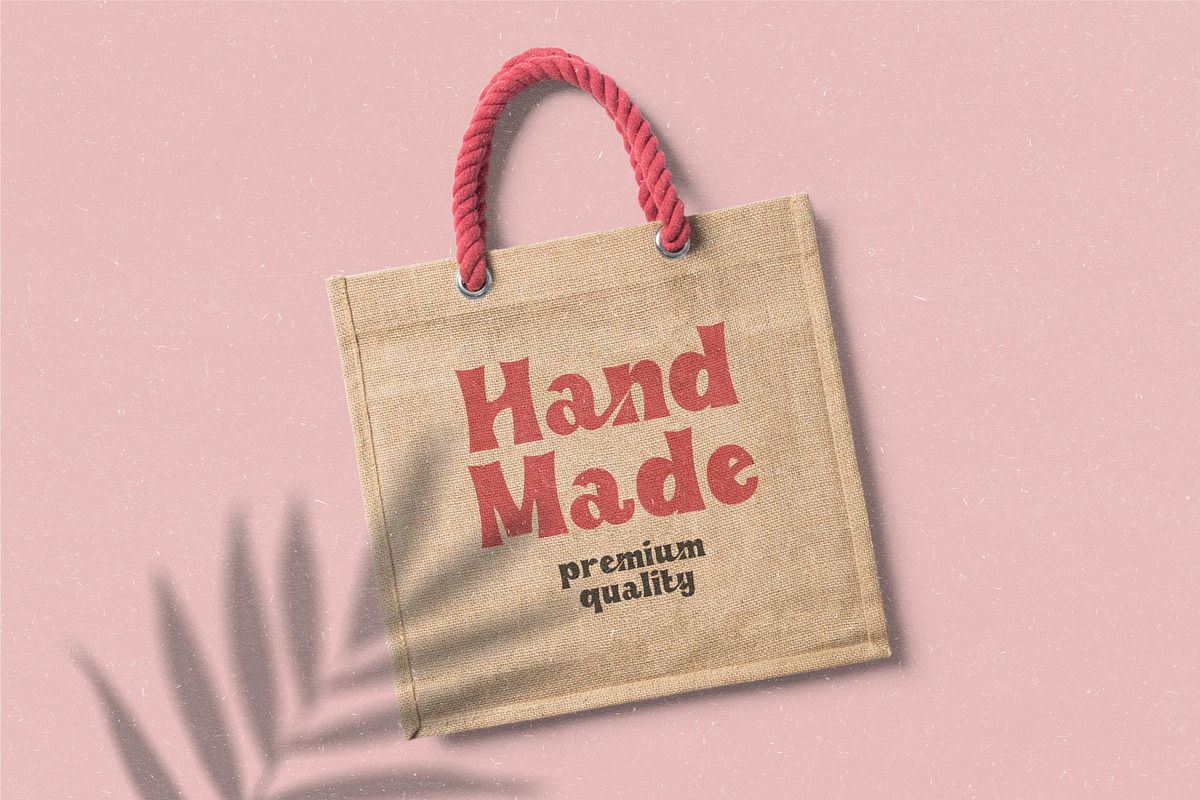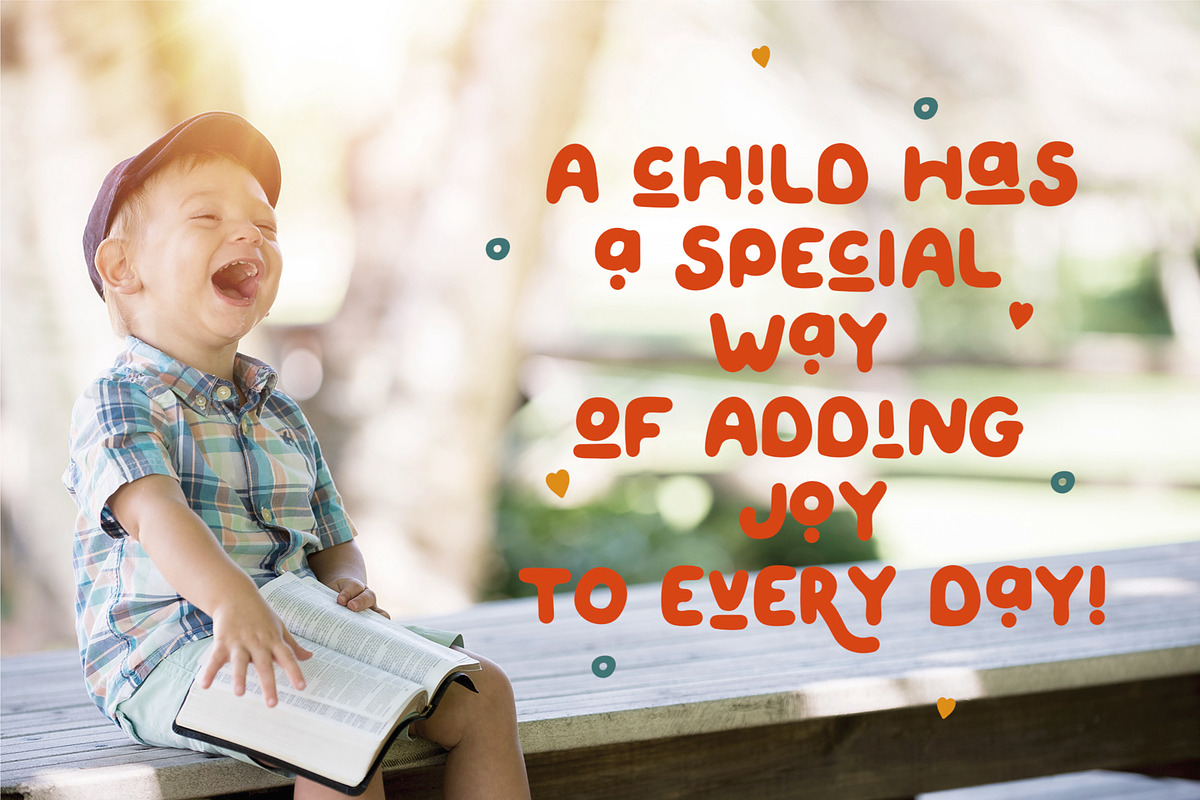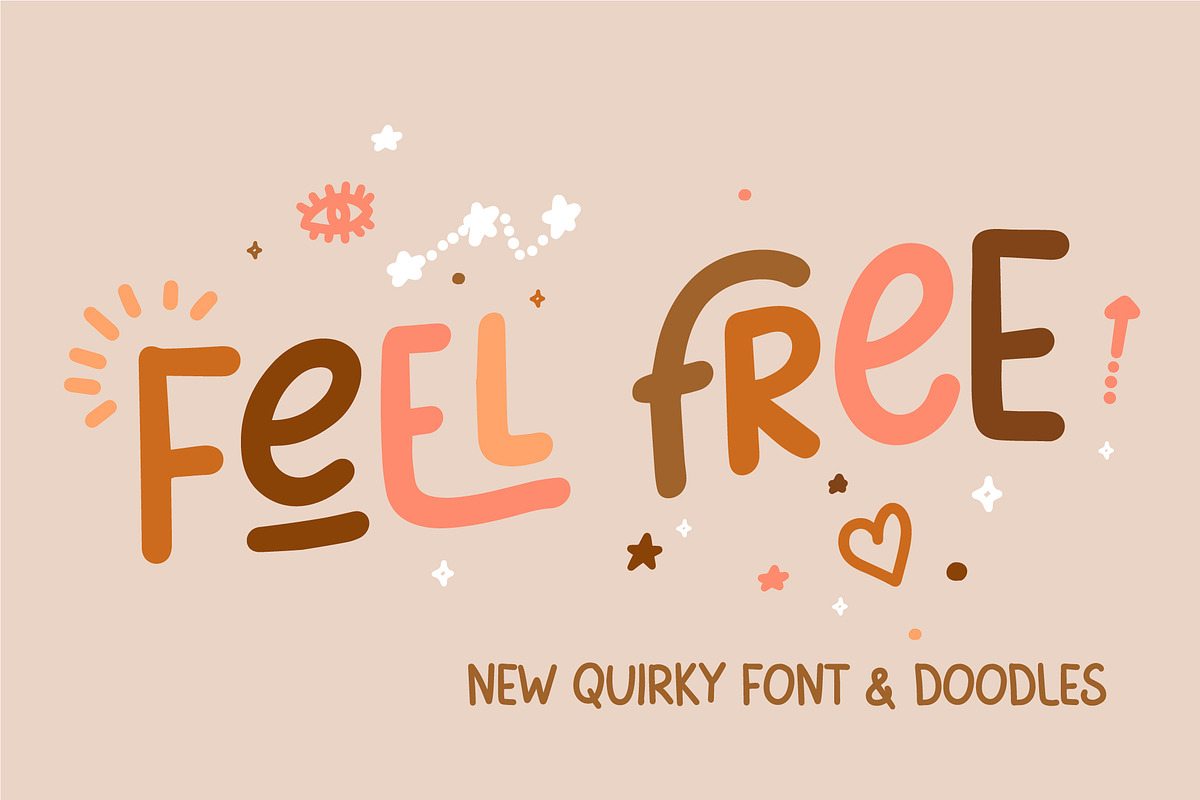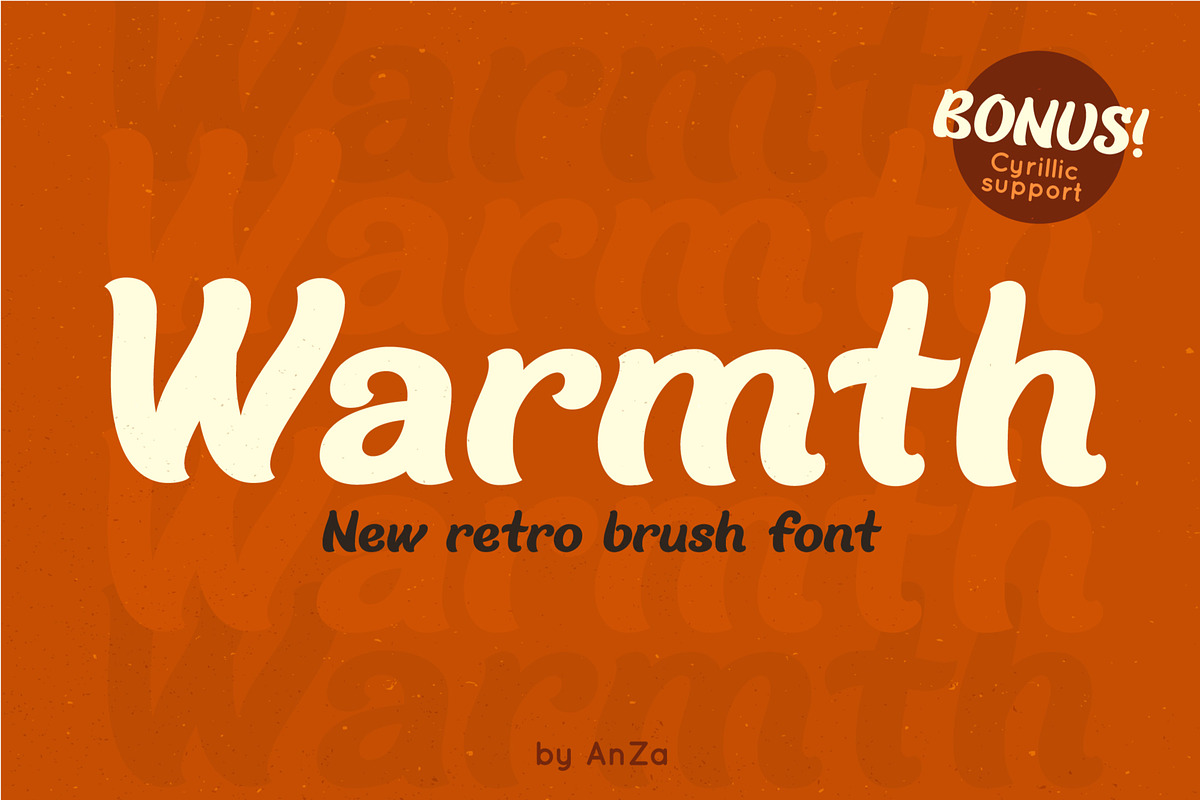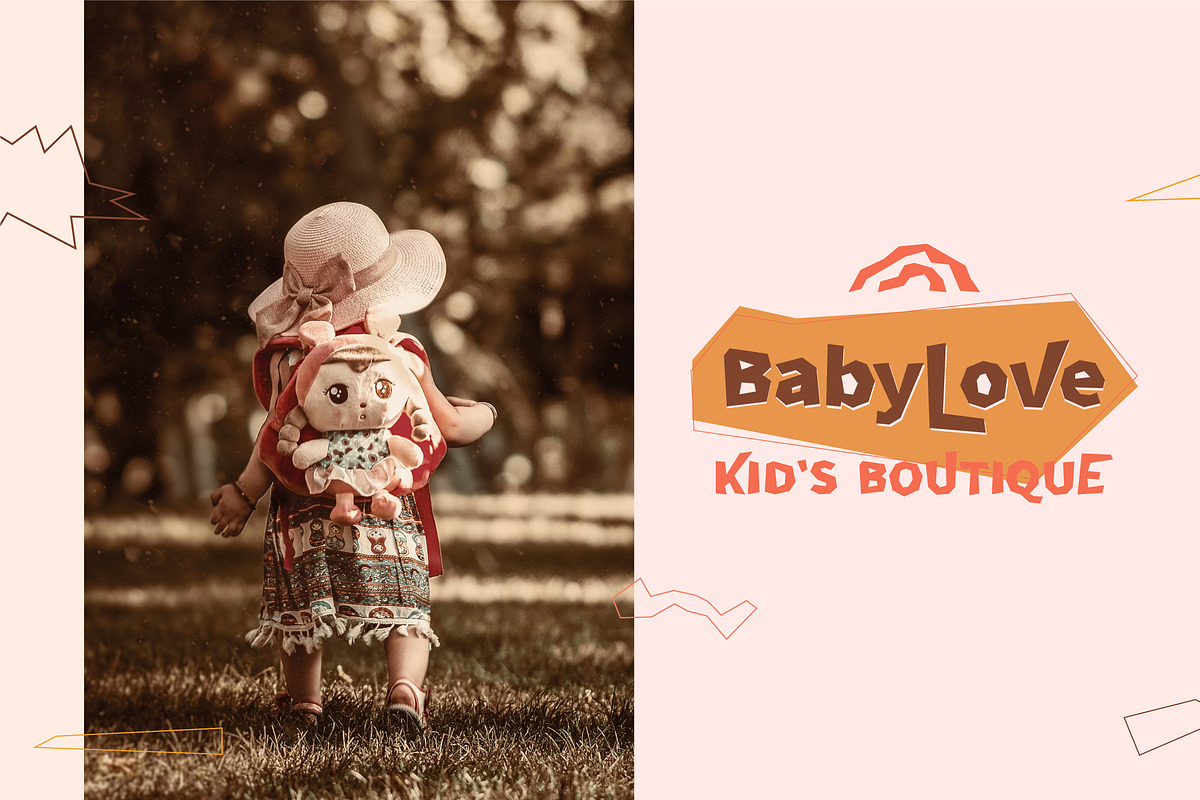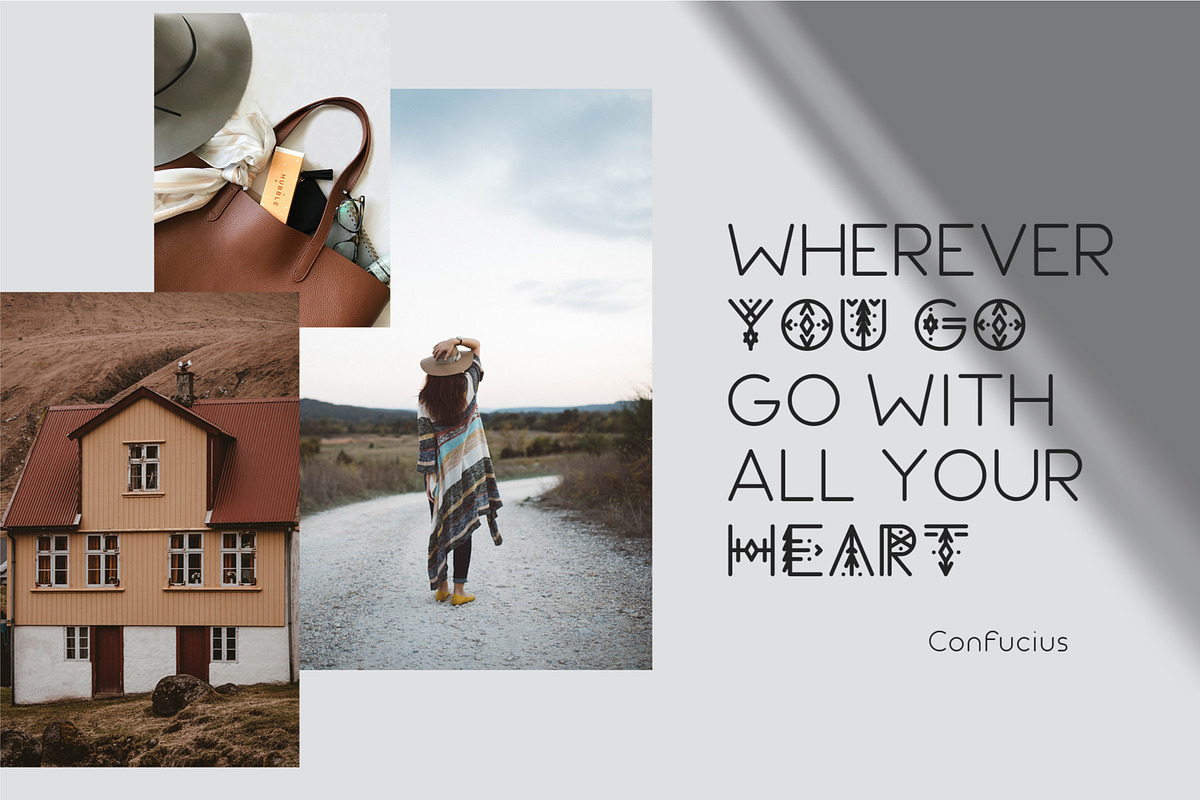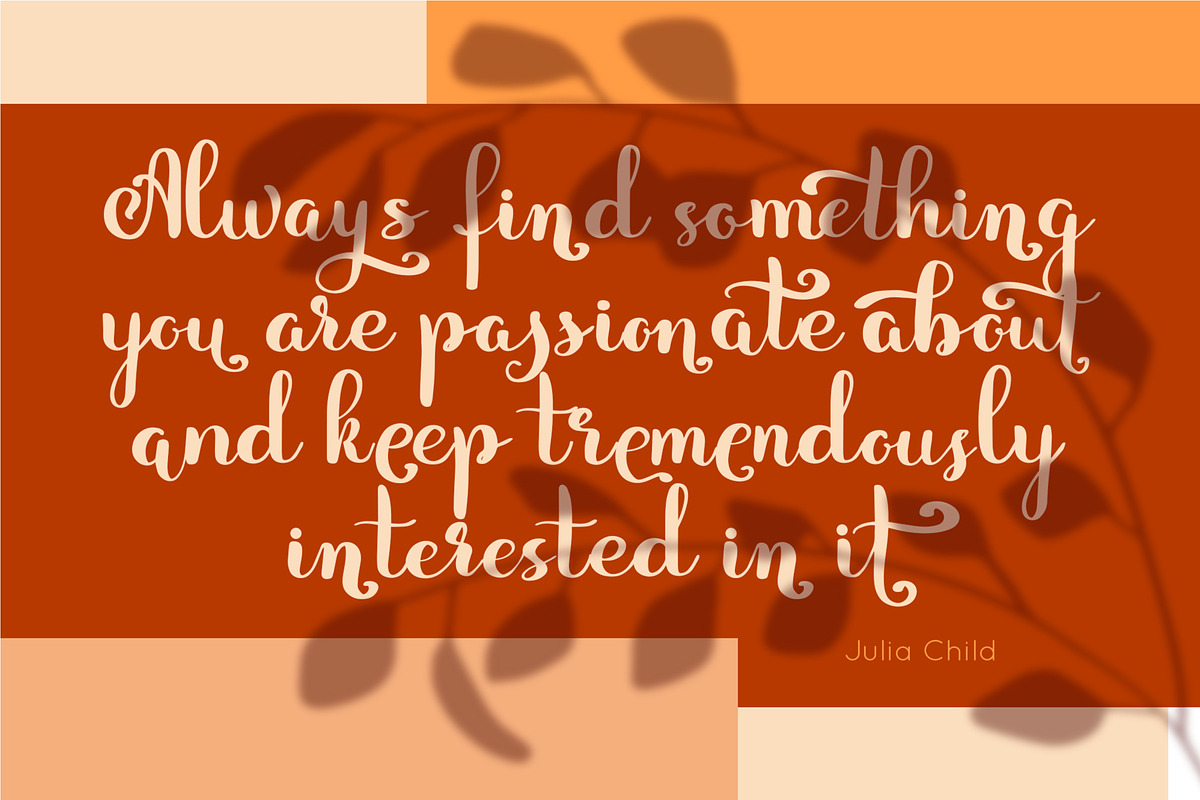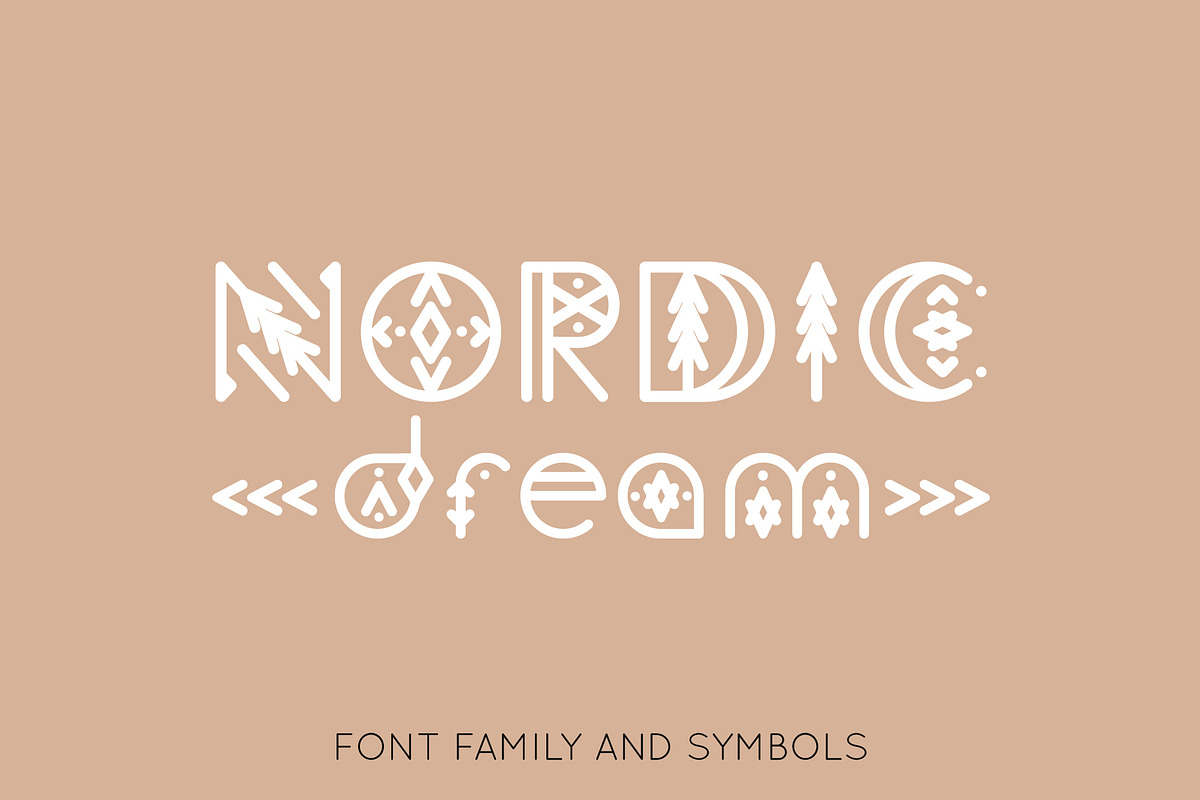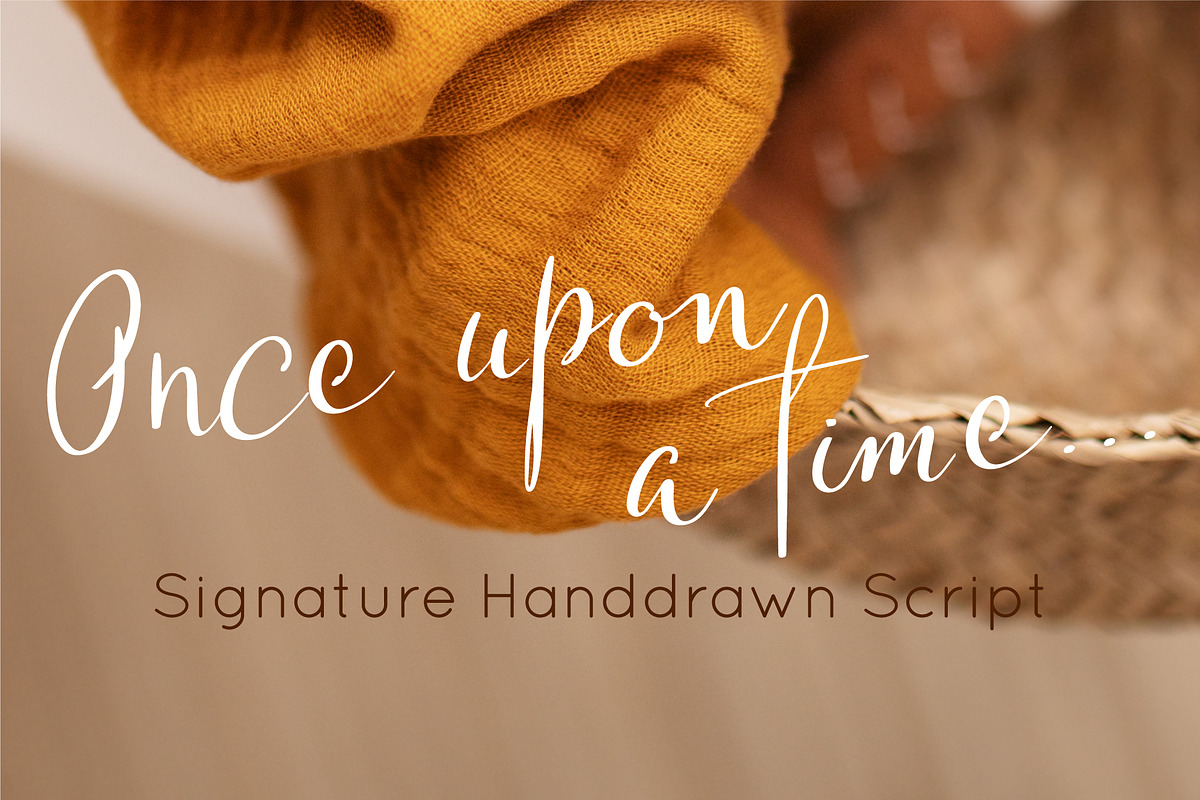
This Playful Font Bundle has really uneven, unexpected, playful fonts which will put a smile on your projects and will inspire you to create something fun and memorable. They are perfect for headings, flyer, greeting cards, product packaging, book cover, printed quotes, logotype, apparel design, album covers, etc.
These quirky fonts will help you to create special and touching typographical design for scandinavian or childish projects, for every day or the happiest day in life, summer vacations, baby shower, happy birthday cards. It is universal and modern font bundle. The owner of endless possibilities!
Make your projects cosy, funny, truly hand-painted realistic and natural.